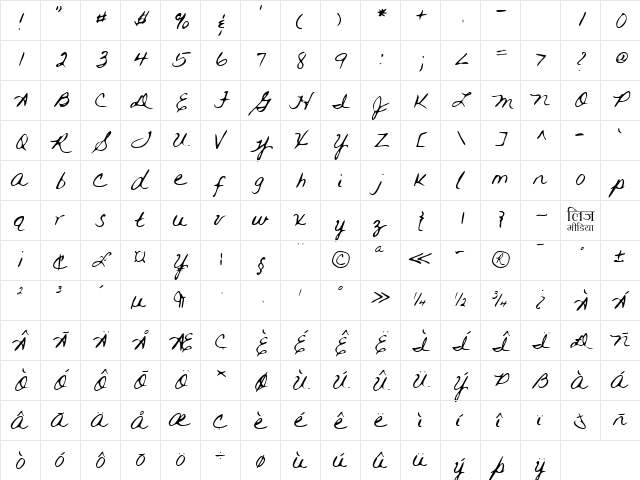
LEHN093 Regular Font Preview
LEHN093 Regular
LEHN093 Regular Font Details
Design Context for LEHN093 Typeface
LEHN093 is a composed and adaptable typeface that performs quietly and consistently across a wide range of design contexts.